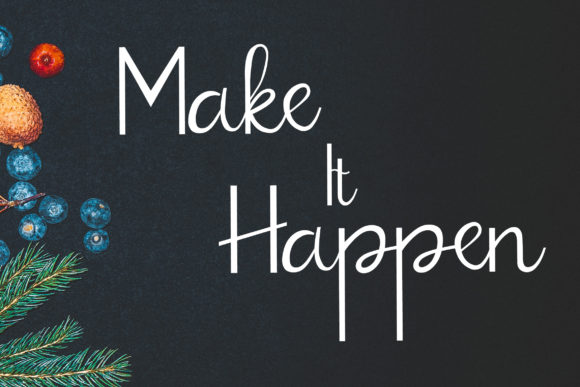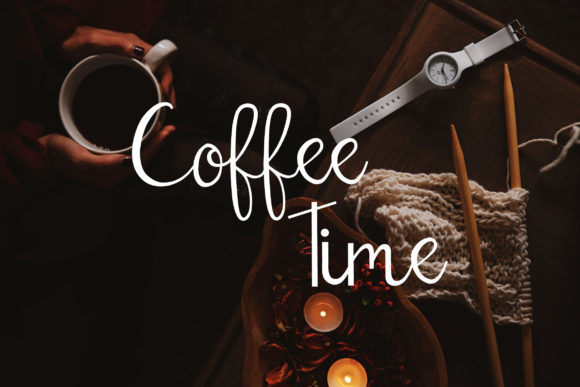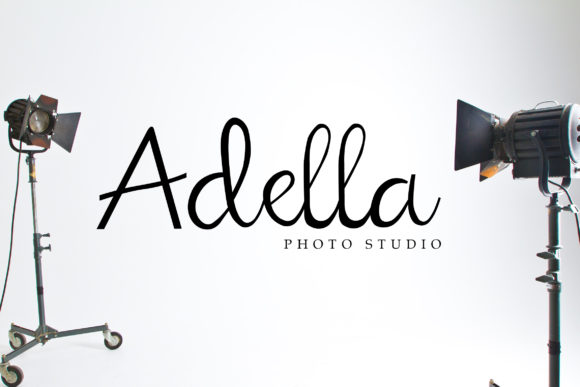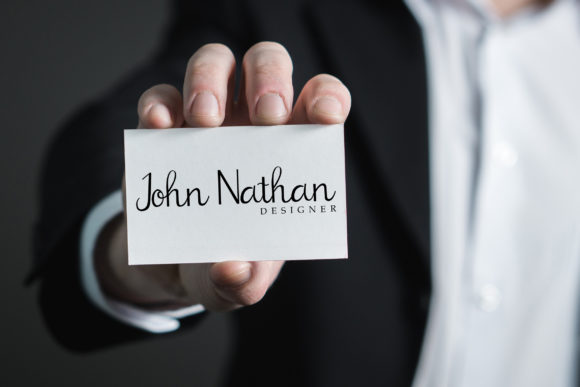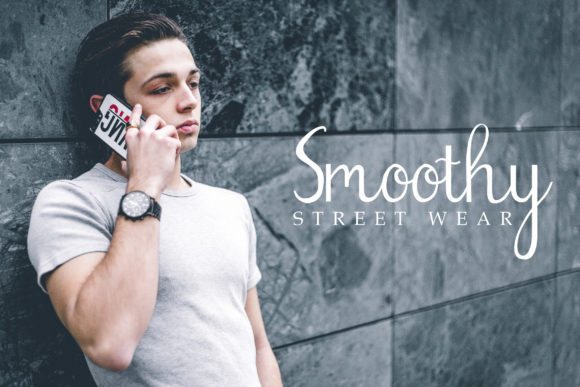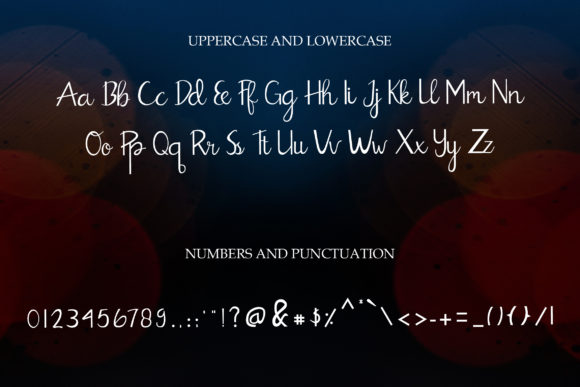
The Perfect Blend of Elegance and Sophistication: Billbo Script Font
Have you ever found yourself scrolling through a design blog, and suddenly, a font catches your eye? For many designers, this moment of inspiration is what drives creativity and sparks new ideas. For me, it was the Billbo Script Font that stood out, and I knew I had to learn more about it.
The Billbo Script Font is a beautiful, elegant font designed to add a touch of sophistication to any design project. Whether you’re creating logos, clothing, posters, business cards, or quotes, this font is the perfect choice. Its versatility and beauty make it a valuable asset for designers looking to elevate their work.
Billbo Script Font Key Features
- Font Style: Script, Calligraphy
- Unique Characteristics: Elegant, cursive script with flourished connections and subtle flair
Billbo Script Font Review
Overall, I think Billbo Script is a solid choice for designers looking for a beautiful, elegant script font. ✨ It’s great for creating eye-catching headings and titles that add a touch of sophistication to any design.
The font’s unique, handwritten feel makes it perfect for branding and packaging design, as well as any project that requires a personal, handmade touch. ✨ Additionally, Billbo Script is highly customizable, allowing designers to fine-tune the font’s style to fit their specific needs.
While Billbo Script is a great font, it does have some limitations. ⚠️ One major issue is its readability at smaller font sizes. The font can become difficult to read when scaled down, which may limit its use in certain design applications.
Another limitation is the font’s limited language support. ⚠️ Billbo Script is primarily designed for use in English-speaking countries, and may not be suitable for projects that require support for multiple languages.
Conclusion
Overall, I think Billbo Script is a great choice for designers looking for a unique, elegant script font. While it has some limitations, its customization options and beautiful design make it a valuable addition to any design toolkit.
- Unique, handwritten feel
- Perfect for branding and packaging design
- Beautiful, elegant design
- May be difficult to read at smaller font sizes
- Limited language support
For the best results, use the Billbo Script Font in conjunction with other elegant and modern fonts. Experiment with different font sizes, colors, and alignments to create visually appealing designs.
The Billbo Script Font is ideal for:
- Social media graphics and ads